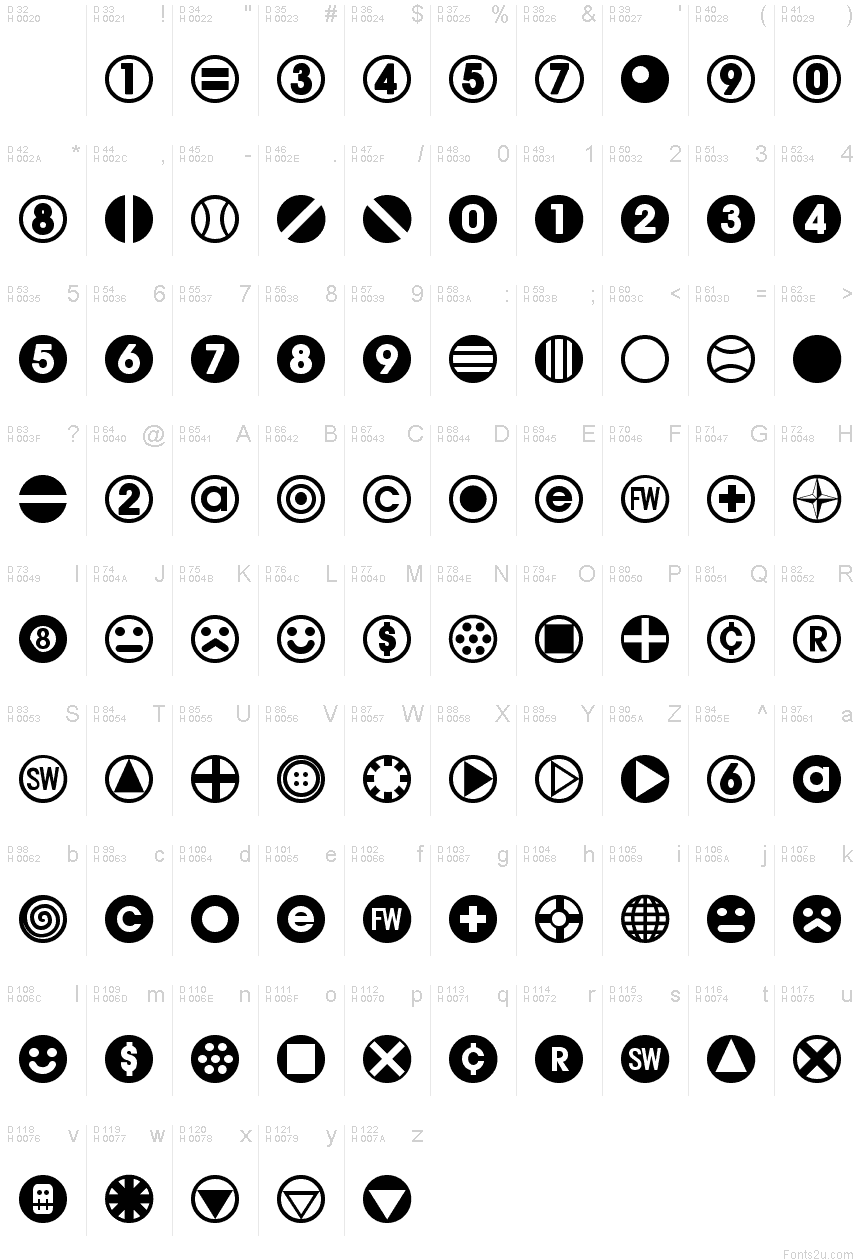
BulletBalls AOE
BulletBalls AOE font by Astigmatic One Eye Foundry is a free dingbat font that turns simple bullets into bold, circular icons. Each mark sits inside a solid black disk, giving you instant, punchy symbols that read clearly even at small sizes. The shapes range from clean letters to spirals and crosses, so you can swap boring dots for graphic “buttons” that feel tactile and click-ready on the page or screen.
Using BulletBalls AOE, you can sharpen navigation lists, infographics, UI labels, signage systems, classroom materials, and bold poster layouts without hunting for separate icons. The strong black circles anchor text, guiding the eye and adding rhythm wherever repetition matters. This free font pairs especially well with a clean sans serif-set your main text light, and let BulletBalls AOE carry the visual weight as your go-to marking system.